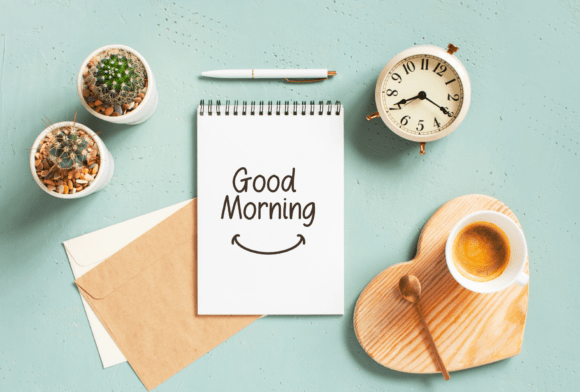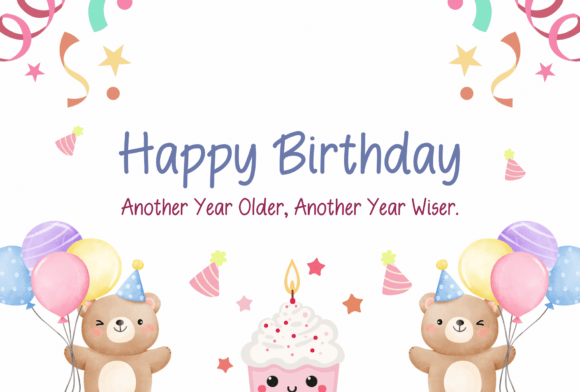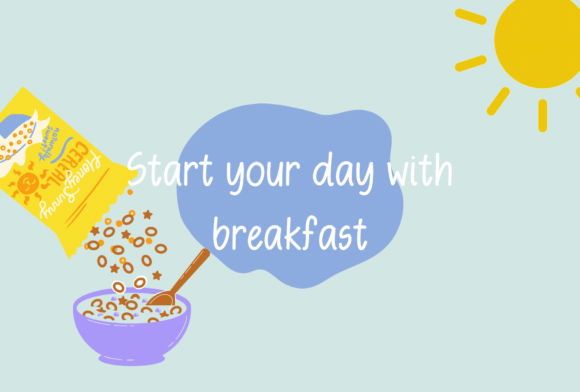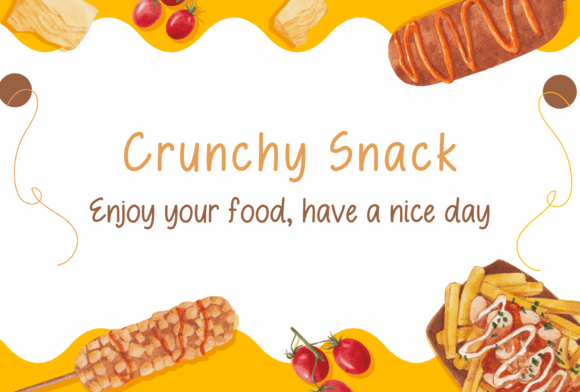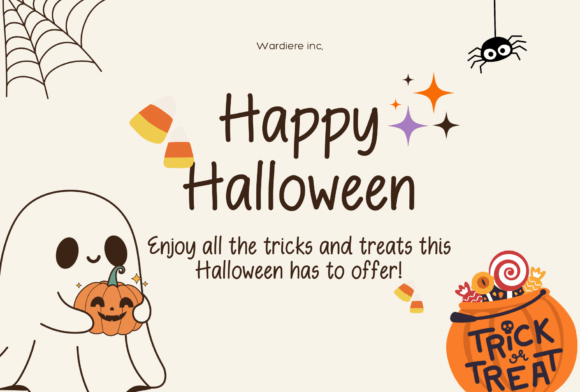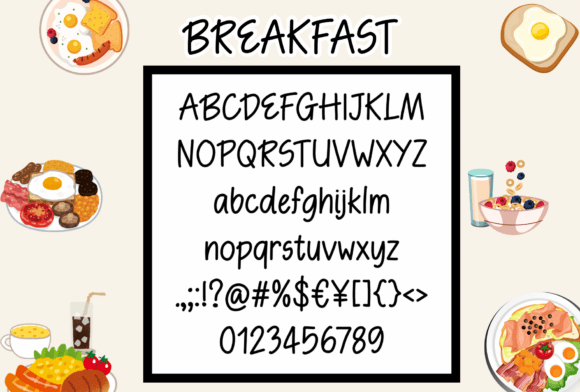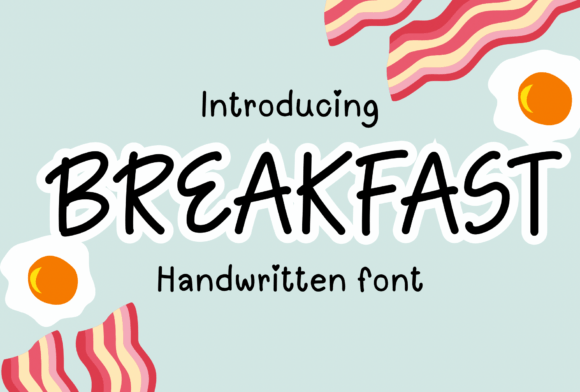
The Cozy Charm of Breakfast Font: A Designer’s New Best Friend
I’ll never forget the morning I stumbled upon Breakfast Font while working on a branding project for a quaint bed-and-breakfast. I was on a mission to find the perfect font that would capture the warmth and coziness of their rustic-chic vibe. As I scrolled through my font library, I stumbled upon this charming handwritten font that instantly transported me to a sunny morning, surrounded by freshly baked pastries and steaming cups of coffee.
As I dove deeper into Breakfast Font, I fell in love with its:
- ✨ Smooth, flowing strokes that give it a natural, handmade feel
- ✅ Playful curves and subtle imperfections that add to its charm
- 💫 Warm and inviting style that’s perfect for creating a cozy atmosphere
- 🎨 Versatility – it works beautifully for both digital and print projects
However, I did notice a few minor quirks:
- 🤔 Some letters feel a tad too condensed, which can make them tricky to read at smaller sizes
- ⚠️ Limited language support – it’s primarily designed for English and a few other Western languages
The Story Behind Breakfast Font
Breakfast Font was designed by a talented type designer who wanted to capture the warmth and coziness of a sunny morning. Inspired by the imperfect, handwritten notes and letters she received from her grandmother, she created a font that would evoke a sense of comfort and familiarity. With its smooth strokes, playful curves, and natural flow, Breakfast Font is the perfect addition to any design project that needs a touch of handmade charm.
| What type of projects is Breakfast Font best suited for? | Breakfast Font is perfect for creative projects that need a cozy, personal touch, such as invitations, branding, social media posts, product packaging, and more. |
| Is Breakfast Font suitable for body text? | While Breakfast Font is beautiful for headings and titles, it may not be the best choice for body text due to its condensed letterforms and limited language support. |
| Does Breakfast Font have any special features? | Yes, Breakfast Font features OpenType capabilities, including ligatures, stylistic alternates, and glyphs, which can add more character and flair to your text. |